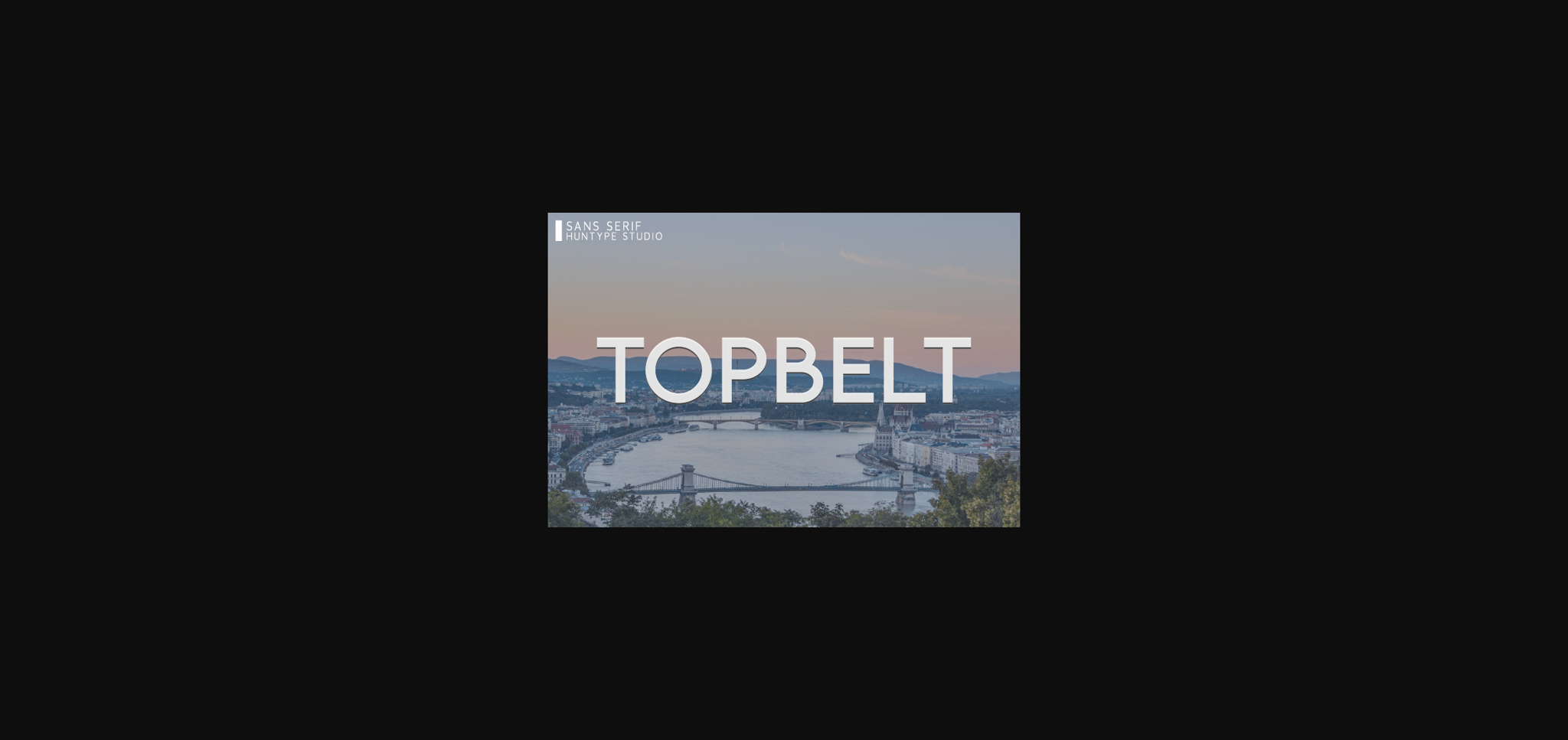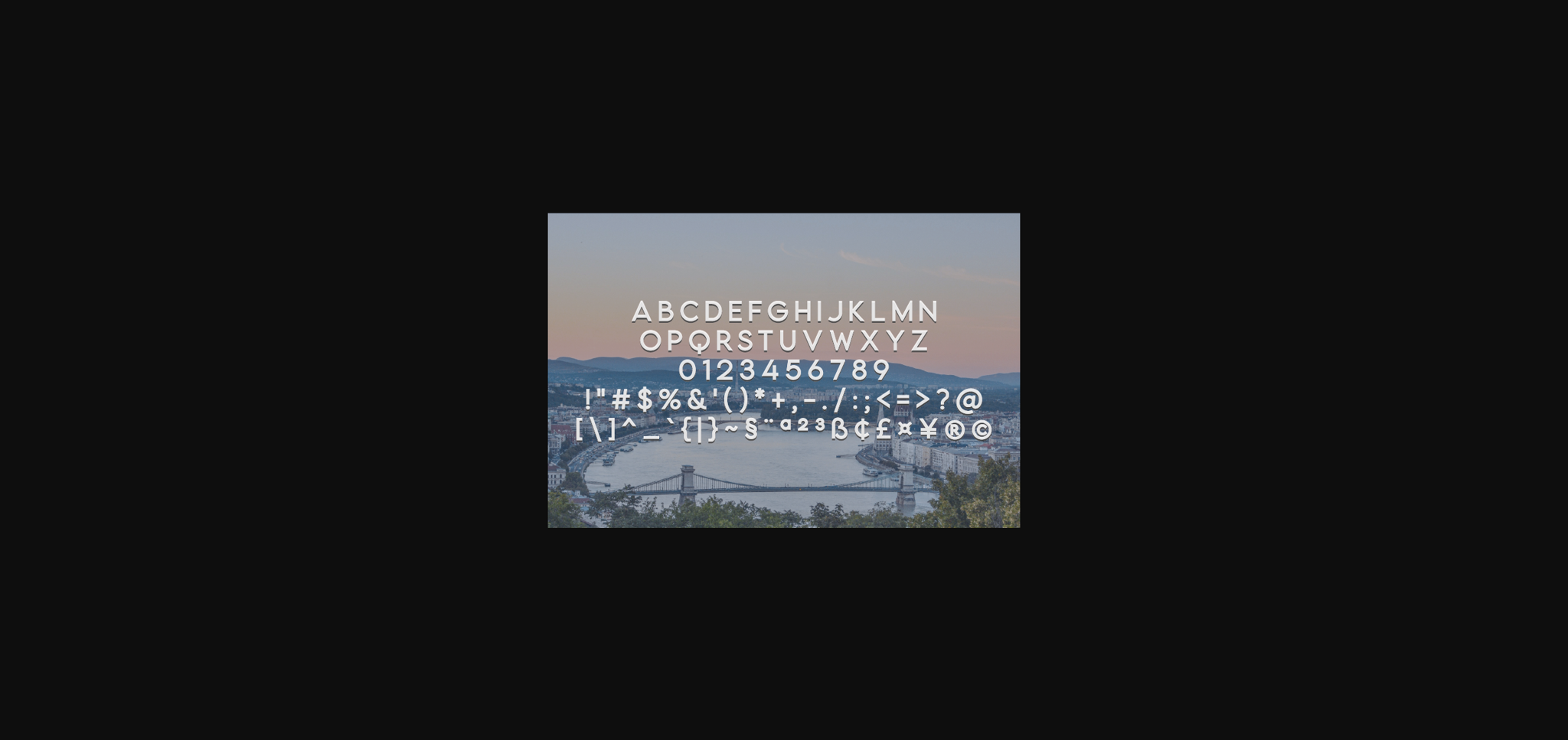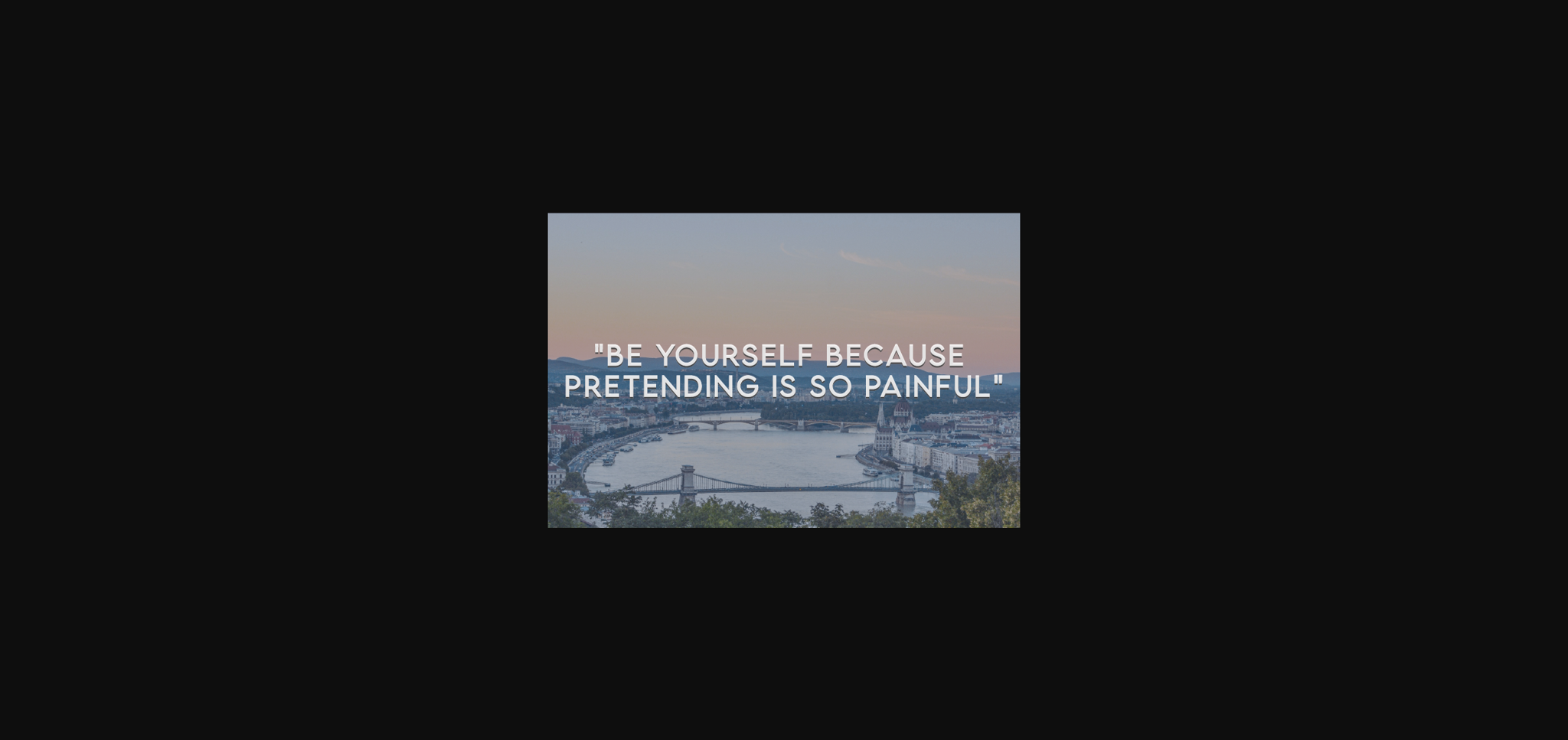
About Topbelt Font
Topbelt is a minimal, yet elegant sans serif font. Suitable to a wide variety of designs due to its neat and simple style, Topbelt has the potential to become your favorite go-to font, no matter the occasion!